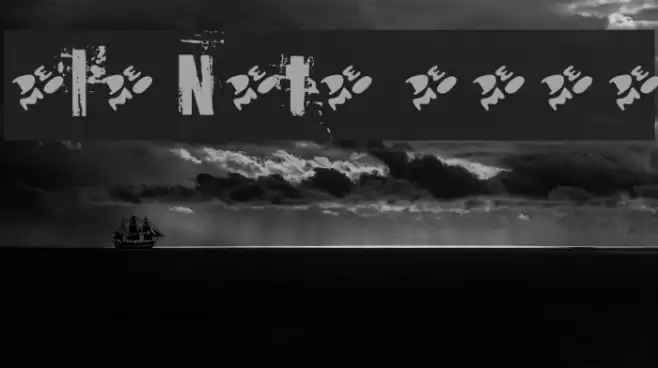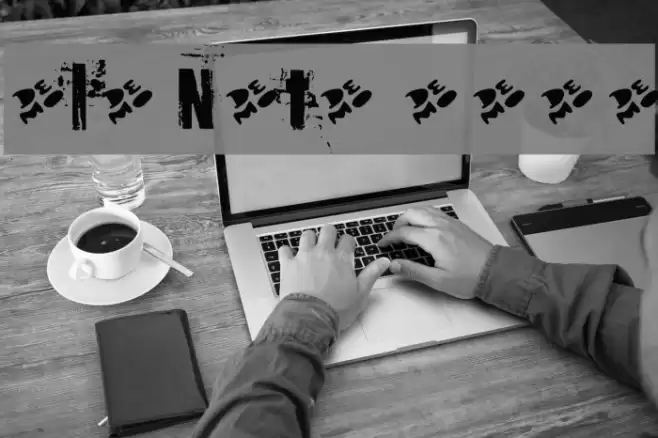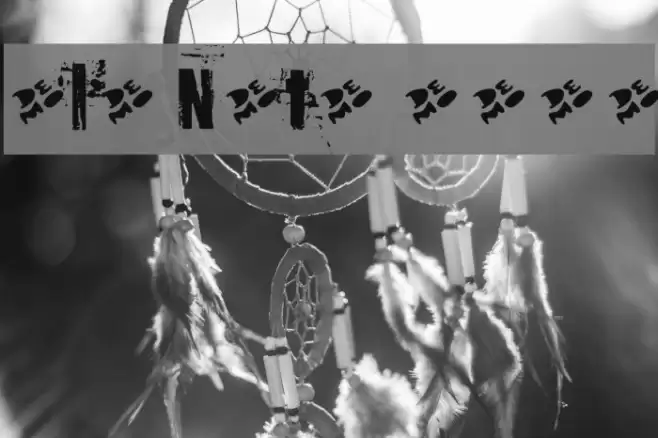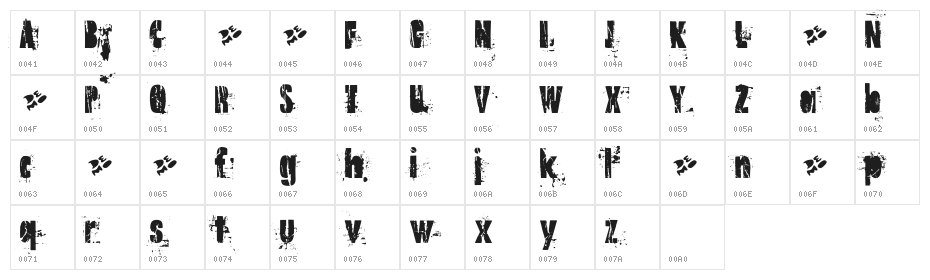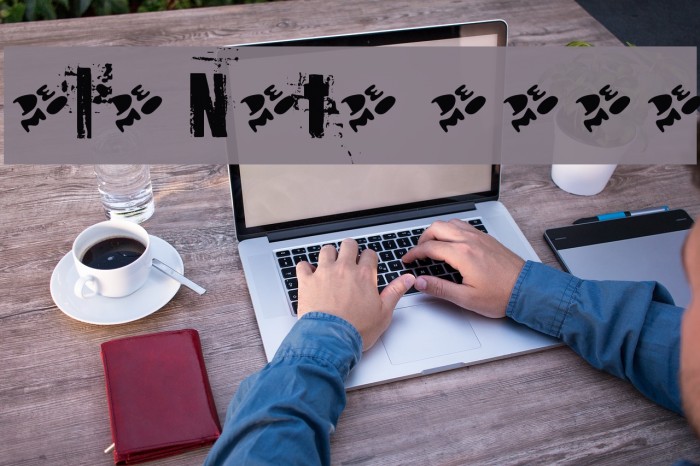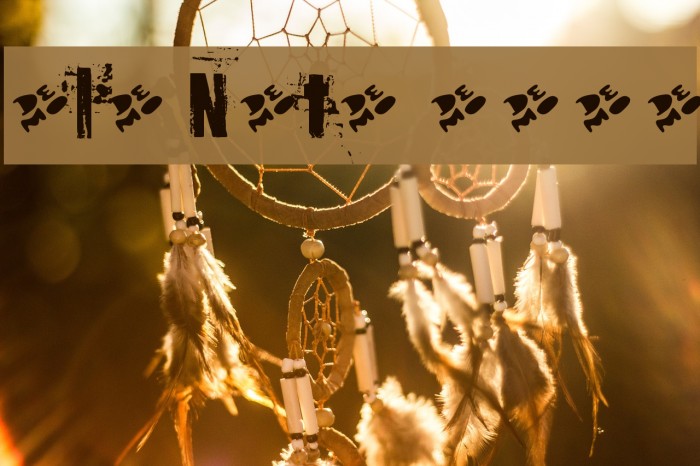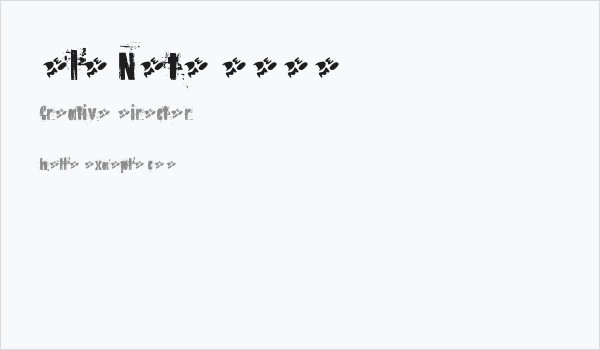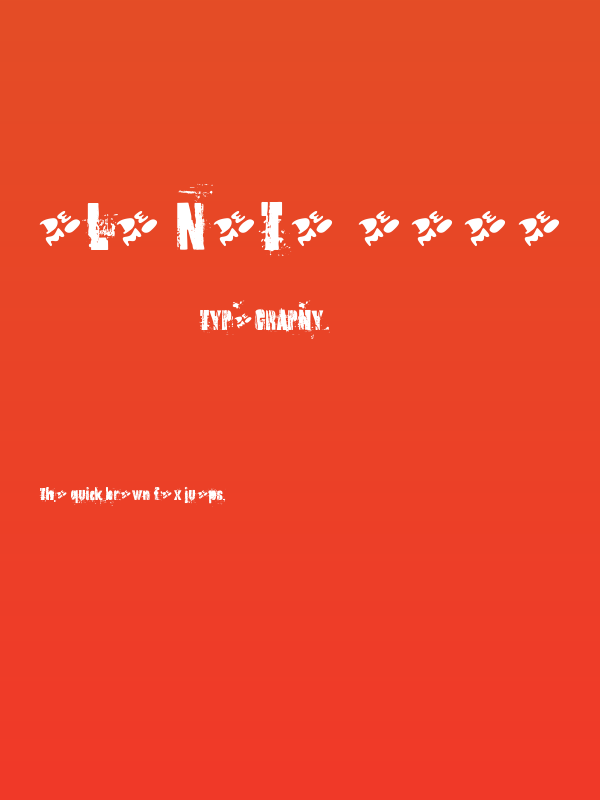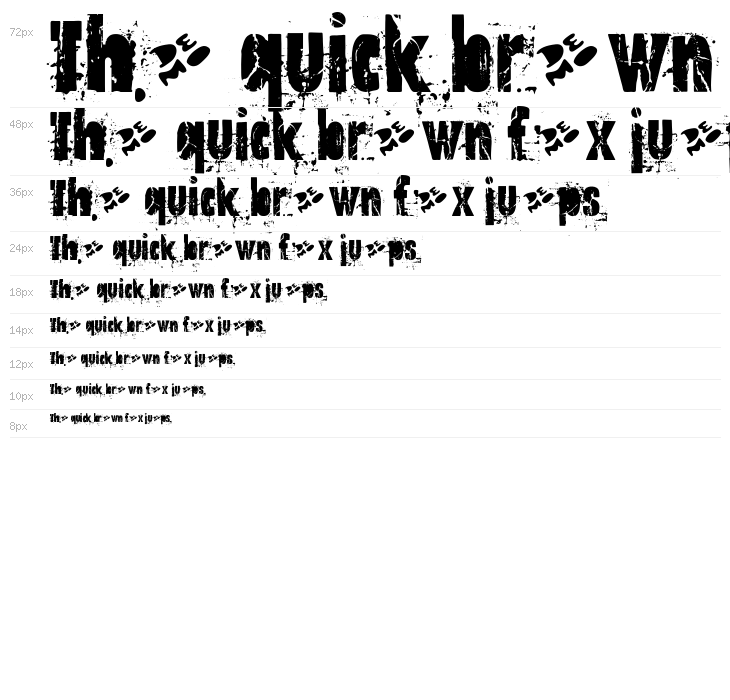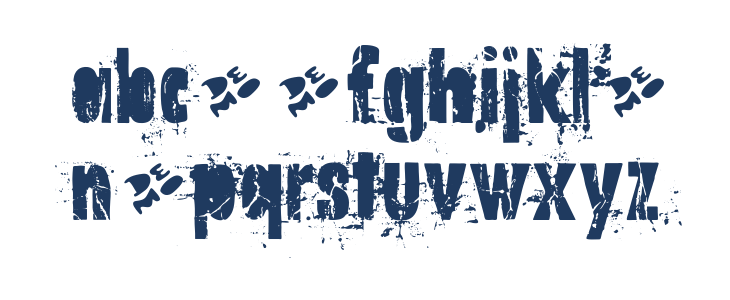
Old Note Demo Font
Old Note Demo Description
This font features a distressed, grunge style with a bold and rugged appearance. The characters are heavily textured, giving them a worn and weathered look, reminiscent of old, faded print. The uppercase and lowercase letters maintain a consistent style, with irregular edges and a rough finish. The numbers and special characters follow the same aesthetic, adding to the overall cohesive design. This font is ideal for projects that require a vintage or industrial feel, such as posters, album covers, or themed event invitations. Its unique appearance makes it stand out, capturing attention with its bold and edgy design.
A distressed, grunge-style font with a bold, rugged appearance from Uncategorized fonts.
- Proposed Projects: Posters, album covers, themed event invitations, vintage designs.
- Overall Style: Vintage